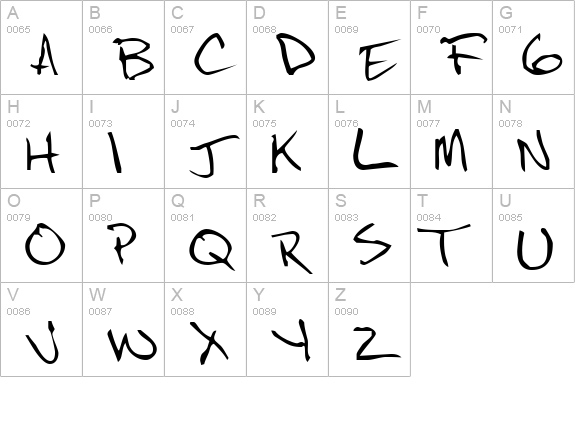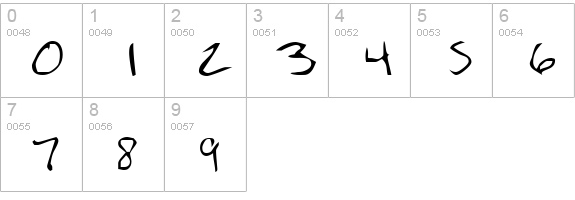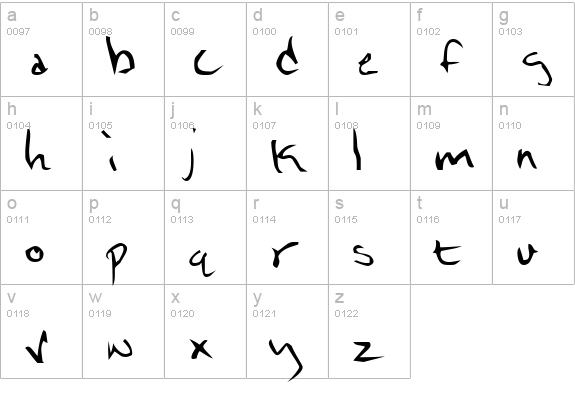
NoteScrawl Font Details
Introducing NoteScrawl font, a whimsical and charming handwritten typeface that exudes a sense of creativity and playfulness. With its unique and irregular strokes, NoteScrawl captures the essence of casual note-taking and doodling, making it perfect for adding a personal touch to your projects. This free font is designed to bring a touch of spontaneity and warmth to your designs, whether you're working on greeting cards, invitations, posters, or social media graphics. Its versatile nature allows you to use it for a wide range of design projects, giving your creations a handmade and authentic feel. NoteScrawl is freely available to download at FontsMarket.com, making it accessible to all designers and creatives looking to add a touch of whimsy to their work. So go ahead, download NoteScrawl today and let your creativity flow with this delightful handwritten font.